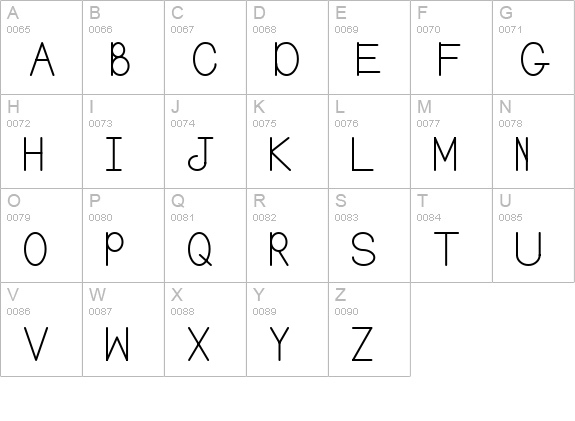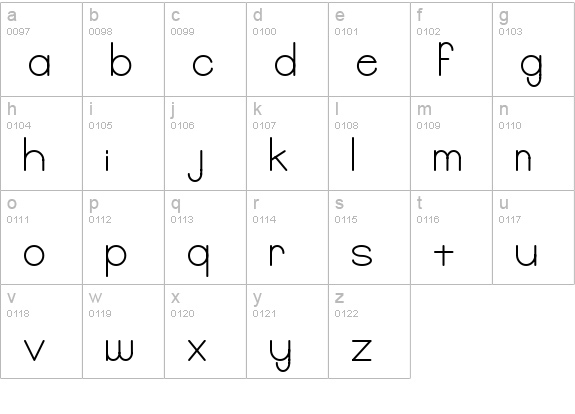
Balker Font Details
Balker font is a stunning typeface that exudes elegance and sophistication. Its sleek and modern design makes it perfect for a wide range of projects, from branding to editorial design. With its clean lines and balanced proportions, Balker font adds a touch of class to any text it graces. What makes Balker font even more appealing is that it is available for free download at FontsMarket.com. This means that you can elevate your designs without breaking the bank. Whether you're a seasoned designer looking to refresh your font collection or a newcomer seeking a versatile typeface, Balker font is sure to impress. Download it today and unlock a world of creative possibilities!